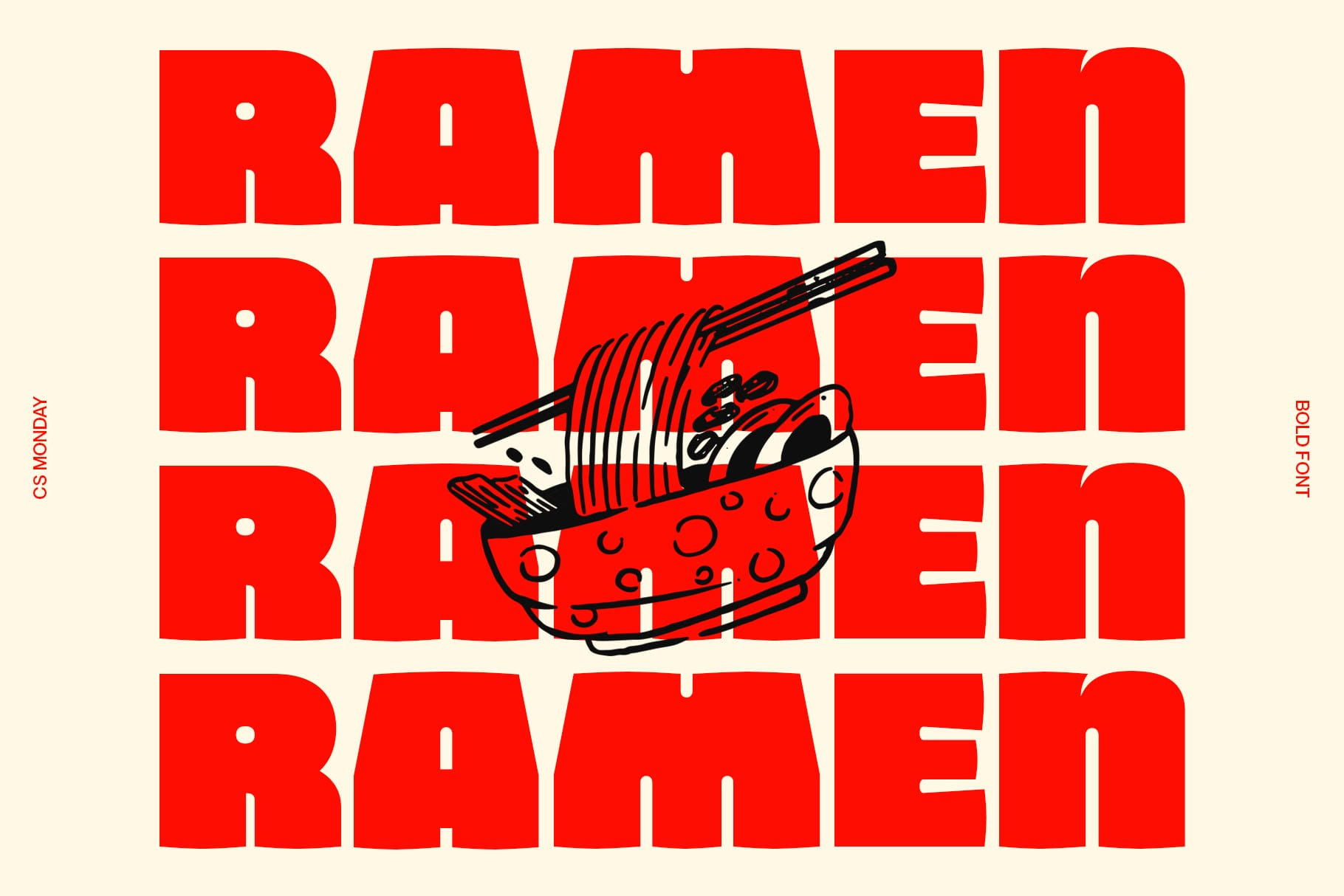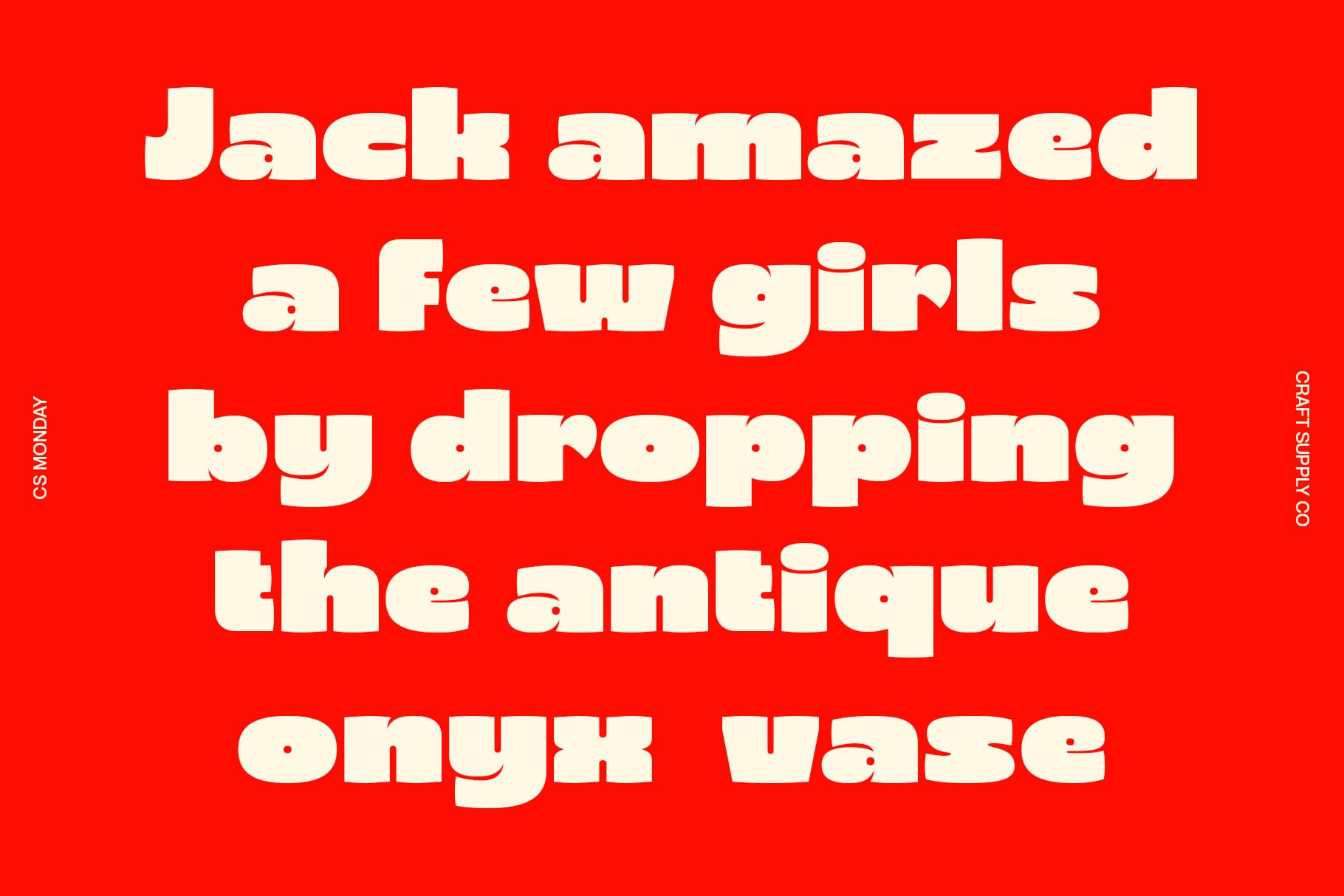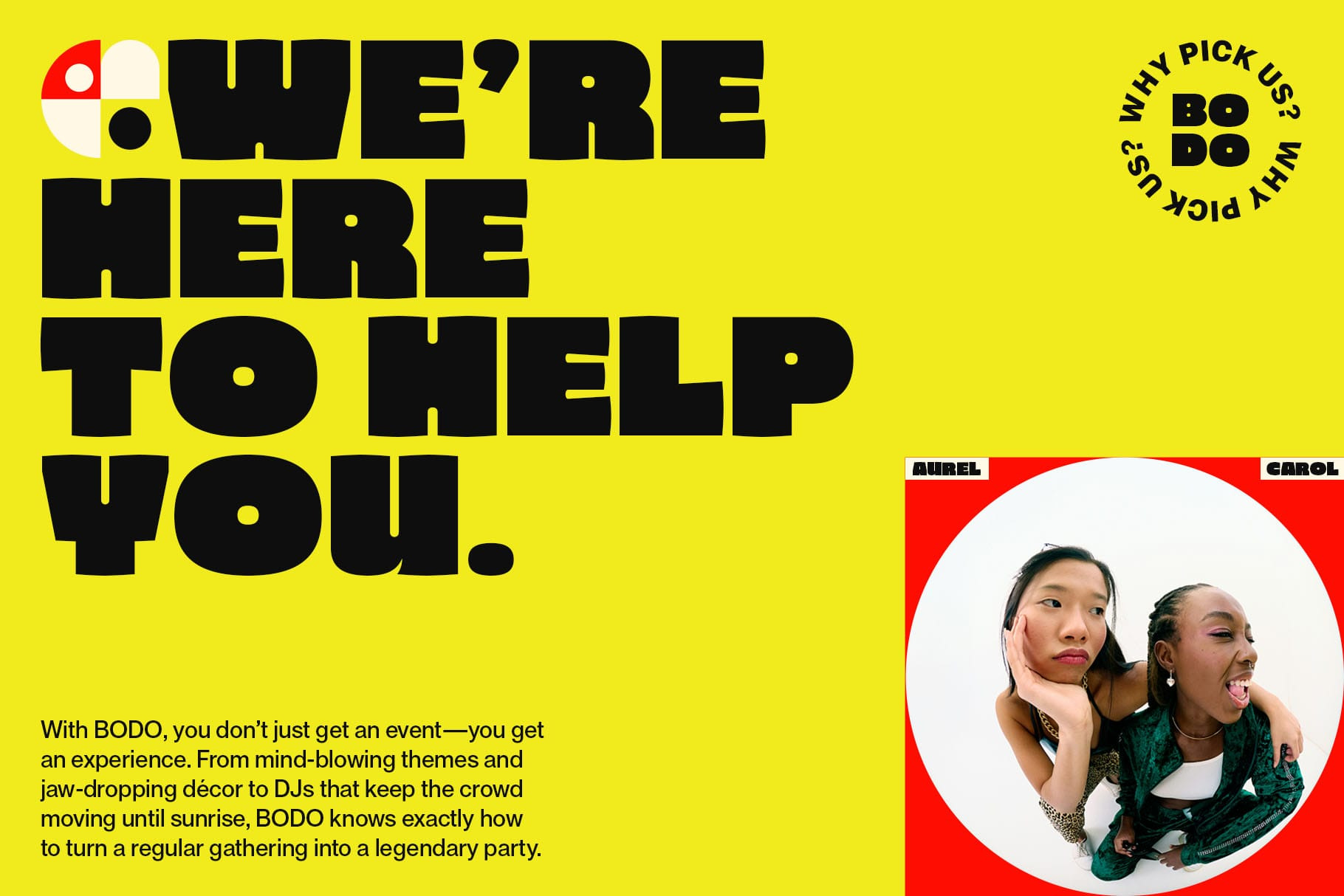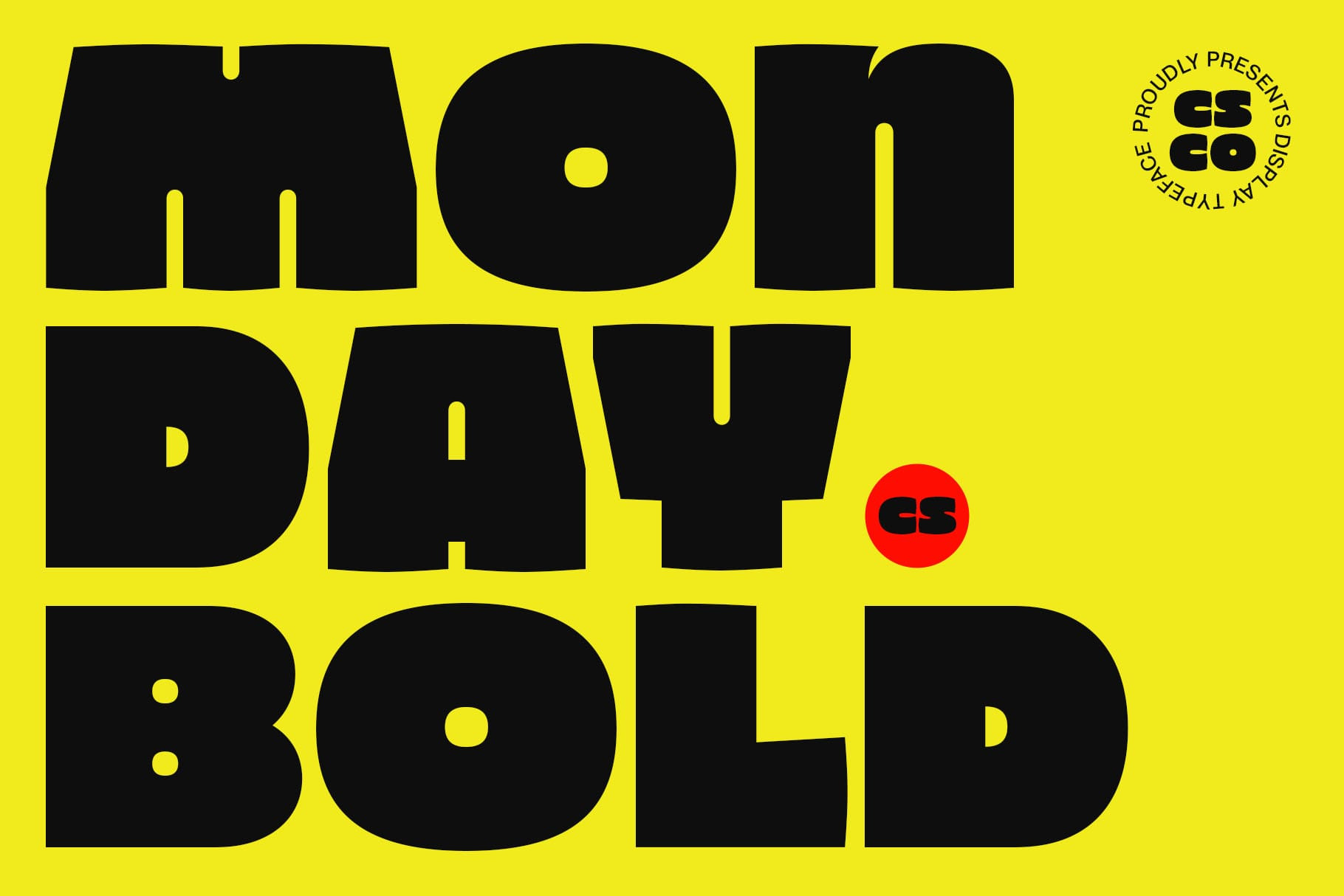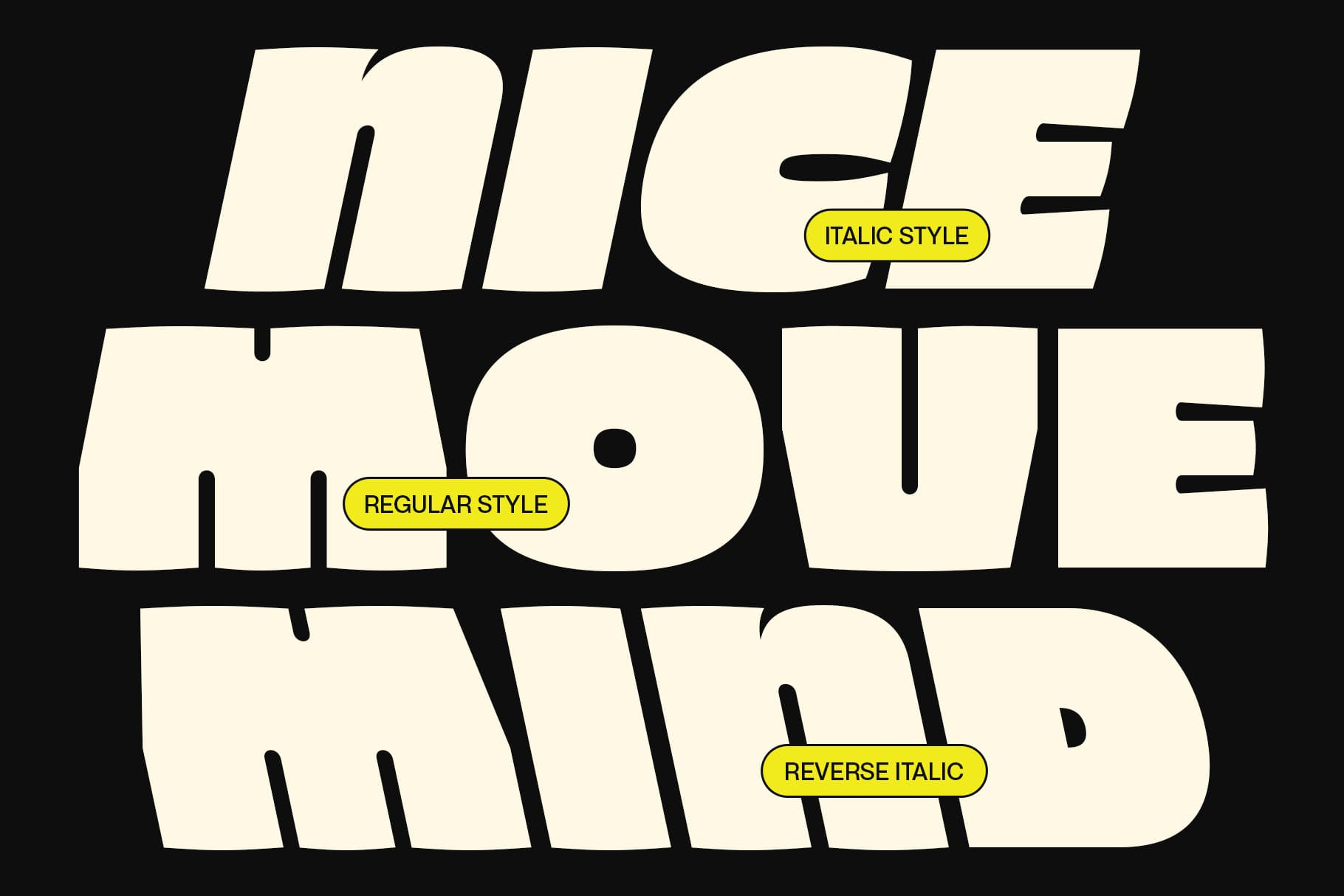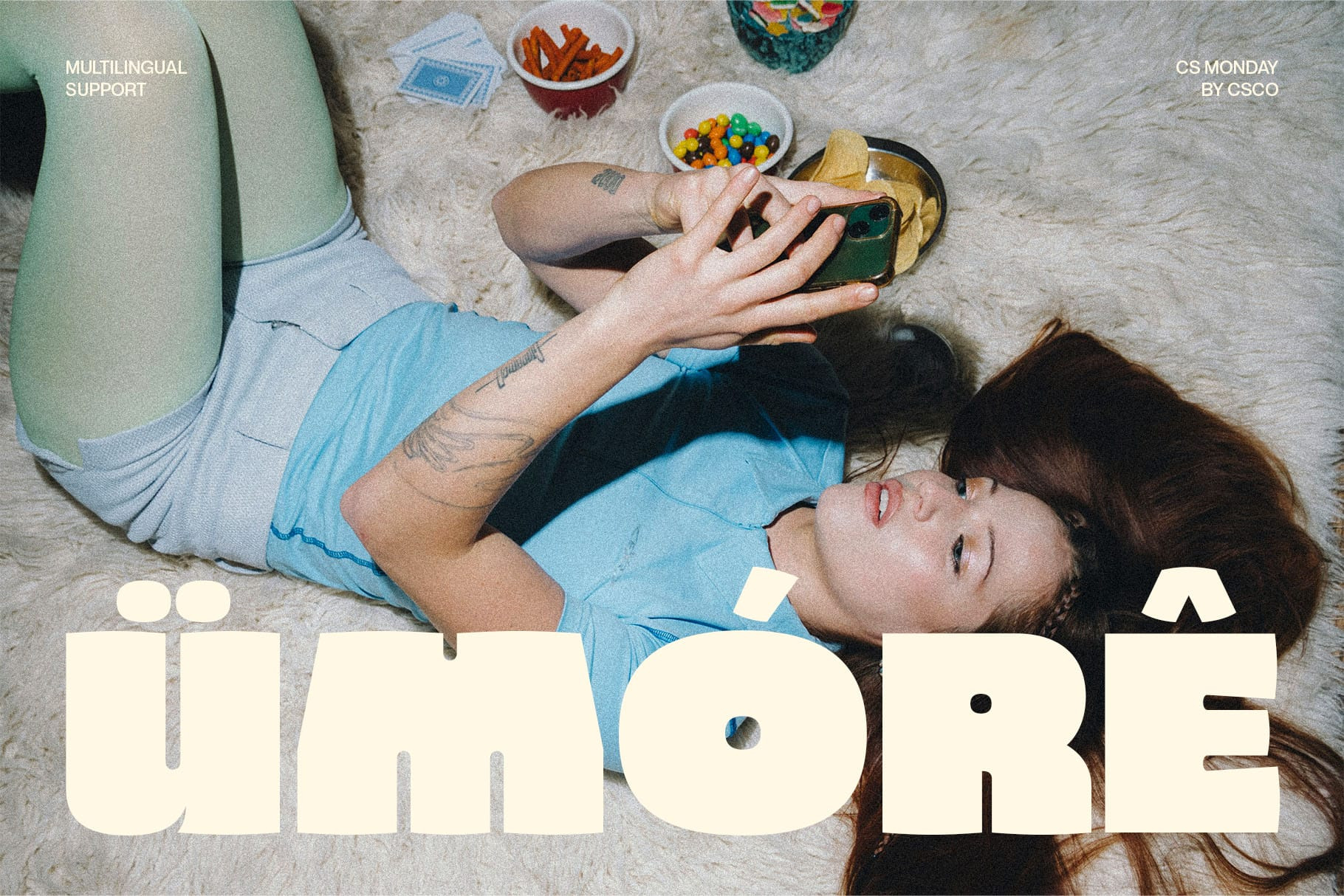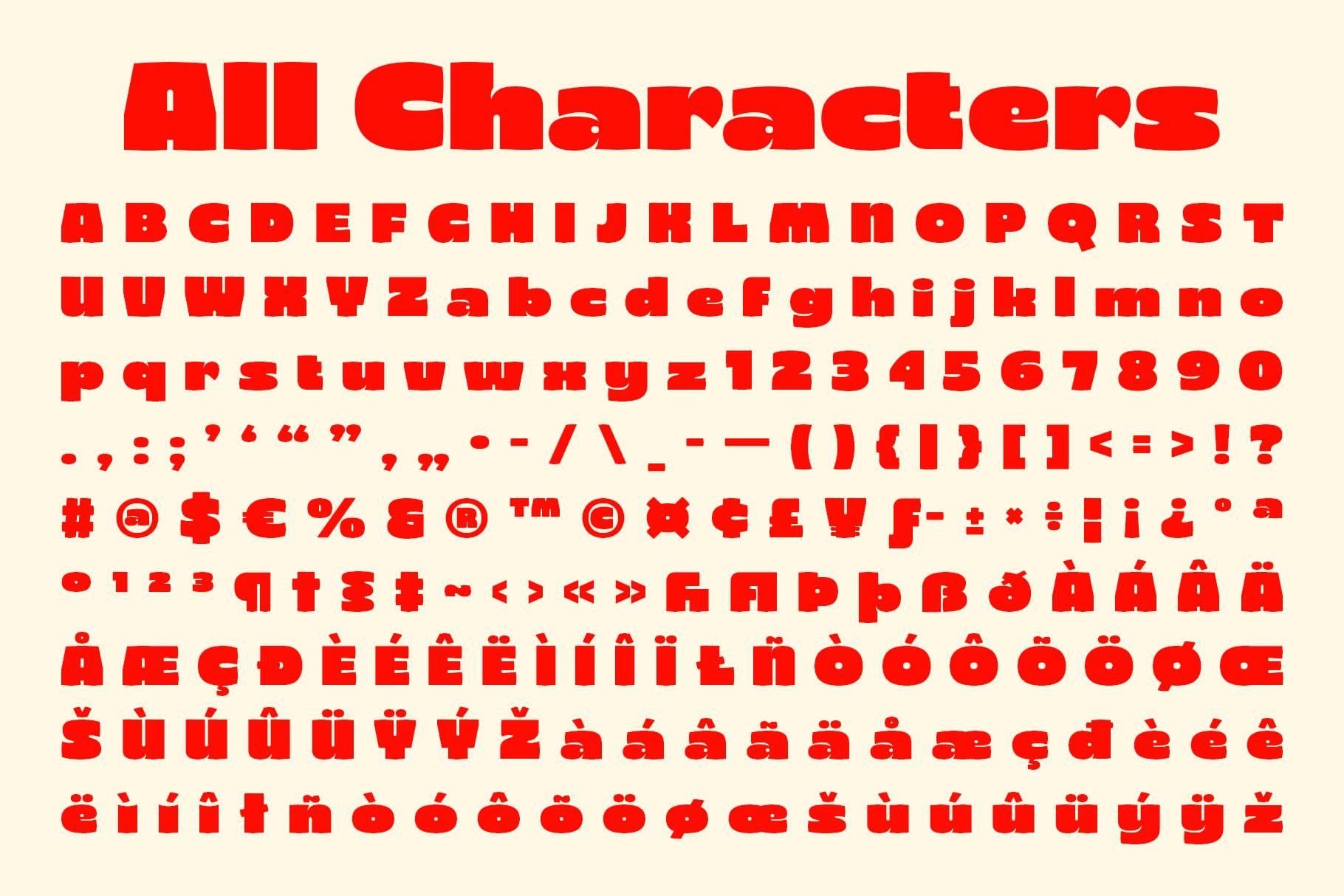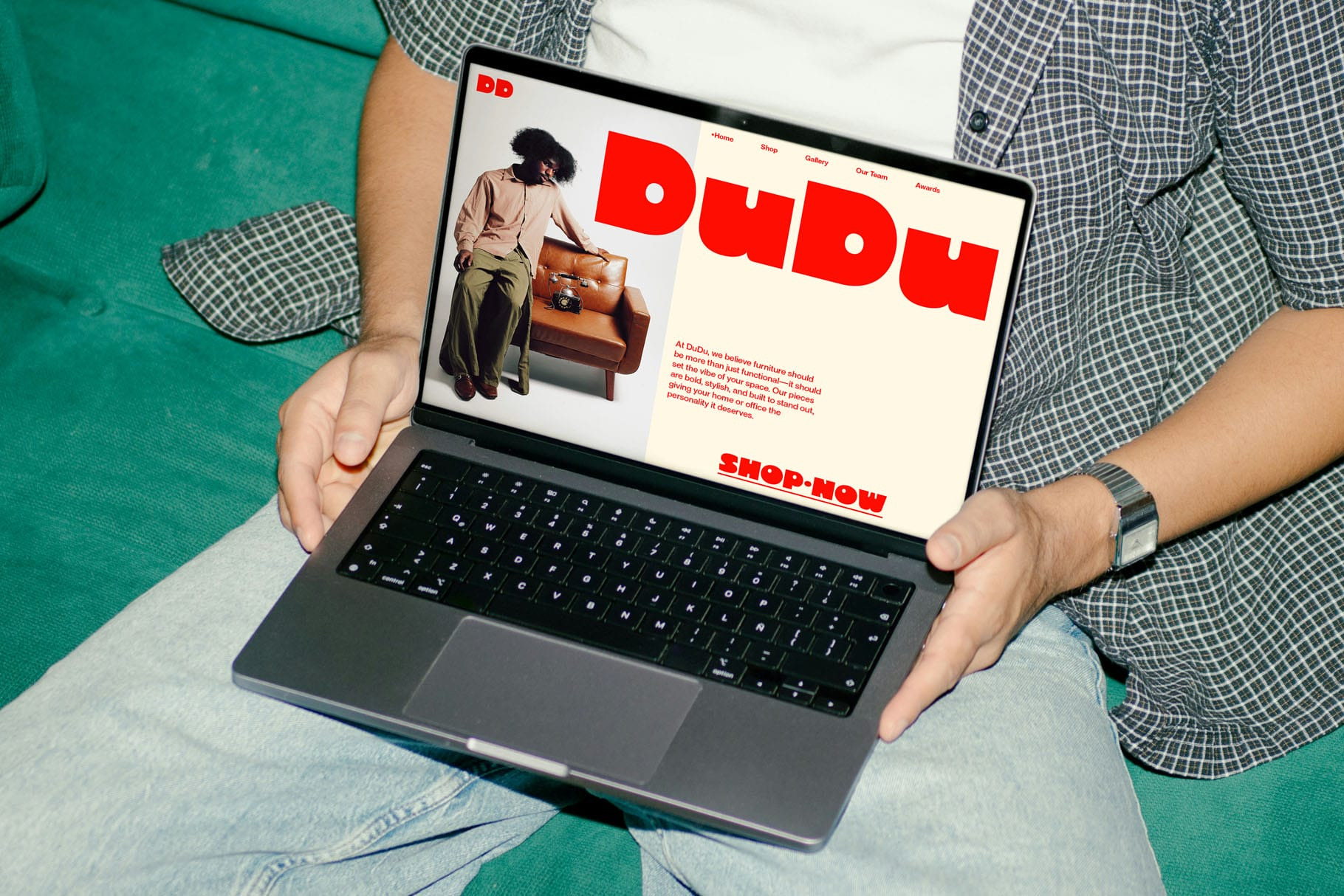
CS Monday – Bold Font: Strong, Modern, and Expressive Bold Contemporary Style CS Monday – Bold Font is a modern sans-serif typeface defined by its bold weight, clean shapes, and contemporary structure. Its solid letterforms provide clarity and strength, ensuring that text commands attention in every setting. Funky and Unique Character What makes CS Monday truly stand out is its subtle funky flair. While bold and professional at its core, the font carries a lively energy that adds charm, personality, and originality to designs. This balance of structure and playfulness makes it versatile yet distinctive. This unique twist injects personality into the design, creating a font that feels both professional and creatively spirited. Versatile Creative Applications Perfect for logos, posters, branding, packaging, and digital designs, CS Monday adapts seamlessly to projects that require a modern, stylish, and expressive tone. Whether used in large headlines or bold display text, it ensures readability while maintaining a vibrant presence. Confident Design Impact CS Monday – Bold Font combines strength, modernity, and creative flair into one cohesive design tool. It’s ideal for creatives seeking typography that feels bold, confident, and full of character, making every project leave a lasting impression. Its bold strokes and funky vibe make it suitable for projects that need to be noticed, remembered, and admired. *Download Type Speciment: https://craftsupply.co/specimens/#cs-monday* - What you get : - CS Monday Regular - CS Monday Italic - CS Monday Reverse Italic Features : - Uppercase and lowercase characters - Numerals and Punctuation (OpenType Standard) - Accents (Supports Multilingual Characters) - PUA Encoding - *You can use this typeface without needing any specialized software.* - If you have any inquiries or need assistance, please feel free to contact us. We appreciate your support in enhancing your creative projects! Best regards, Craft Supply Co. | CS Monday – Bold Font | Craft Supply Co